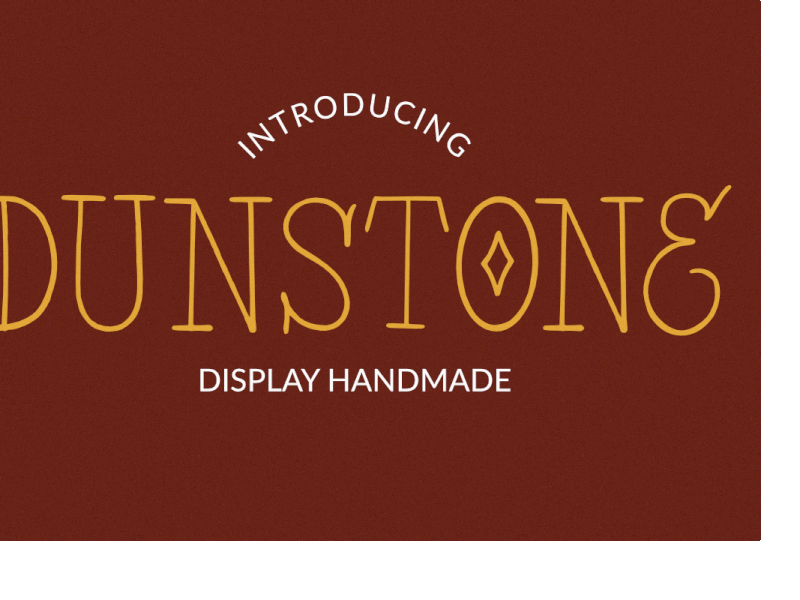
Dunstone Display Font
Introducing, Dunstone display font. this handmade font is perfect for branding, packaging, logotype, headline, magazines, books, greeting / wedding cards, packaging, fashion, make up, stationery, novels, labels or any type of advertising purpose.
Features :
uppercase & lowercase
numbers and punctuation
multilingual